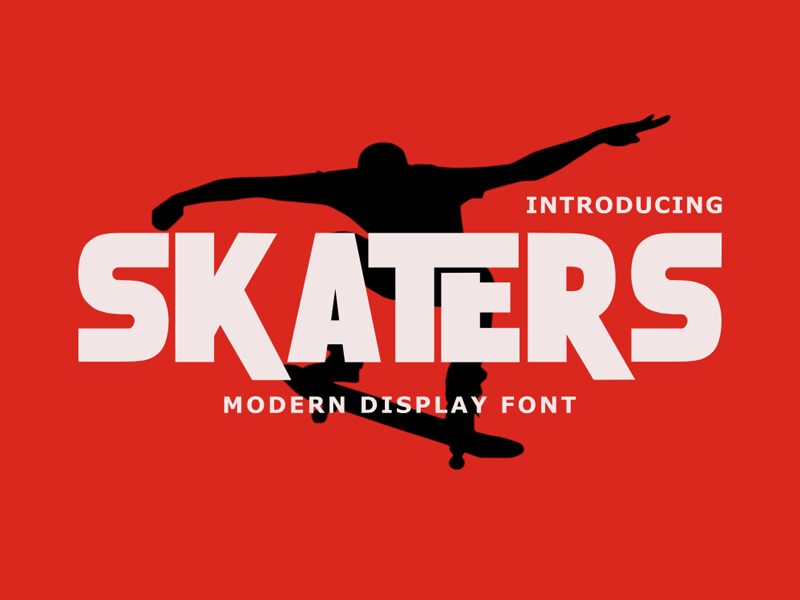
Skaters Display Font is a simple, bold and bold display font. Use it for each of your casual designs and report how it makes it stand out!
Präsentation und Schriftprobe von Skaters